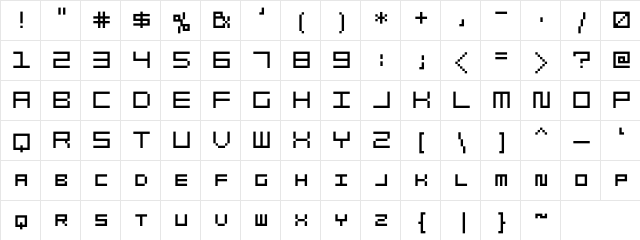
ADBlockmini10 Regular
Design Context for ADBlockmini10 Typeface
ADBlockmini10 is a composed and adaptable typeface that performs quietly and consistently across a wide range of design contexts.